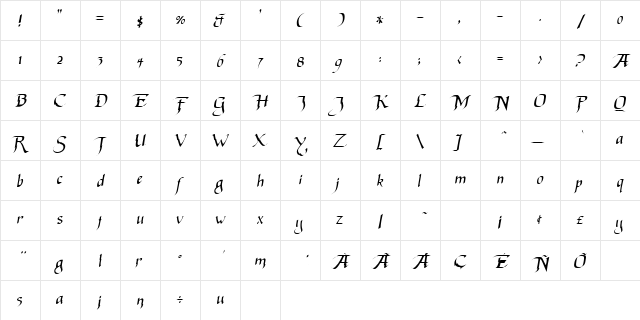
Aventura Regular Free Font
Aventura Regular
Aventura Family
Design Context for Aventura
Aventura is a composed and adaptable typeface that performs quietly and consistently across a wide range of design contexts.